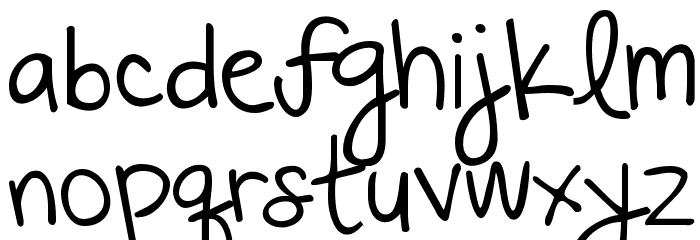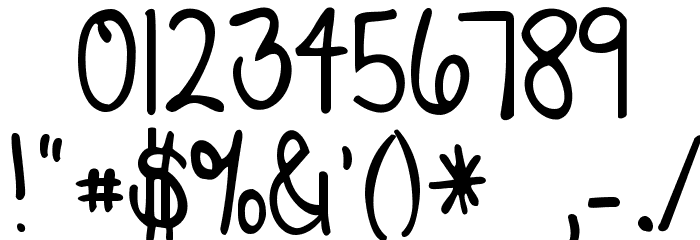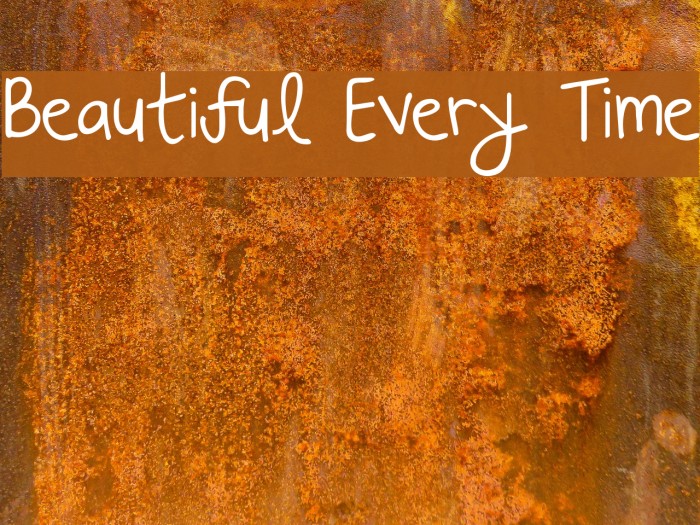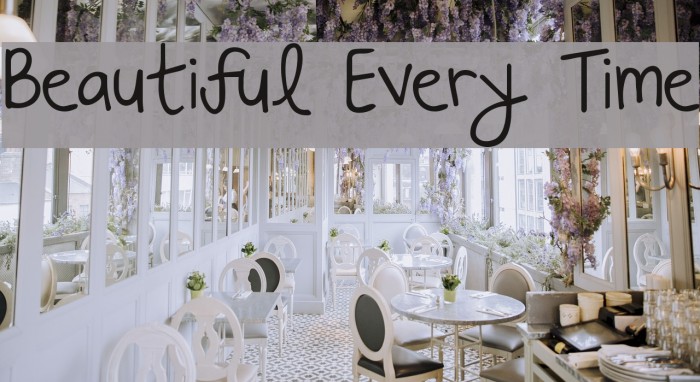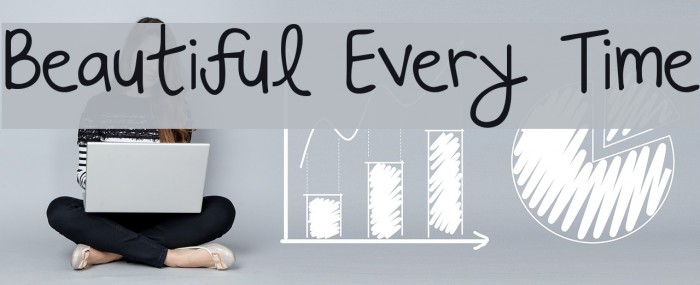
Beautiful Every Time Font
This playful and casual font features a handwritten style with a friendly and approachable appearance. The characters are slightly irregular, adding a personal touch that mimics natural handwriting. The uppercase letters are bold and rounded, while the lowercase letters maintain a consistent flow with smooth curves. Numbers and special characters are designed to match the overall style, ensuring a cohesive look. The font's informal nature makes it suitable for projects that require a personal or whimsical touch.
A playful handwritten font with a casual and friendly style.
- Proposed Projects: Ideal for greeting cards, children's books, personal blogs, and informal branding.
- Overall Style: Casual
- Use Case: Headlines, Informal text, Personal projects